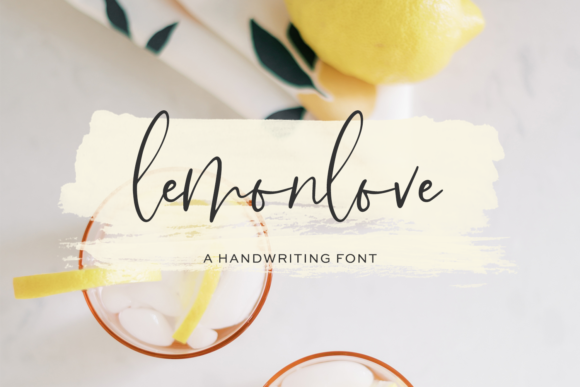
Feast your eyes on Lemonlove Font, a creation of BeckMcCormick, a masterpiece that will whisk you away to a world of elegance and charm. This exquisite script font, with its delicate strokes and enchanting curves, holds the power to transform your designs into captivating works of art. Step into a realm of endless possibilities, where your imagination knows no bounds.
With Lemonlove Font, you'll embark on a journey of creative expression, crafting stunning logos, eye-catching social media graphics, and captivating website designs. Its versatility knows no limits, seamlessly adapting to a symphony of design styles. Allow your creativity to flourish as you witness your designs bloom into breathtaking masterpieces.
Let Lemonlove Font ignite the spark of inspiration within you. Its unique character and stunning impact will add a touch of luxury to every project you undertake. Embrace the art of hand-drawn typography, and watch as your designs come alive with a captivating allure that leaves a lasting impression.
Dive into the world of Lemonlove Font and discover a font that will captivate your audience and leave them craving more. Its meticulously crafted glyphs, brimming with personality, will transform your designs into visual masterpieces. Experience the joy of creating designs that resonate with your audience, leaving them utterly charmed and inspired.
With Lemonlove Font, you'll unlock a treasure trove of creative possibilities. Its versatility knows no bounds, effortlessly complementing a myriad of design aesthetics. Whether you're crafting a whimsical invitation, a sophisticated business card, or a dynamic poster, Lemonlove Font will elevate your designs to new heights of beauty and refinement.